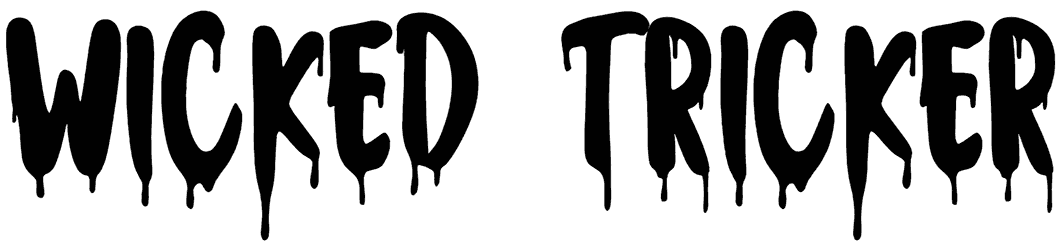
Wicked Tricker Font
If you’re working on a dread-themed project, Wicked Tricker might catch your eye. This decorative font with its blood-dripped look can convey the daunting and direful vibe. With no offer for lowercase, this dripping font still is an interesting outward for many projects such as Halloween posters, invitation cards, illustrations, and whatnot. Give it a try and surprise your viewers with more blood!